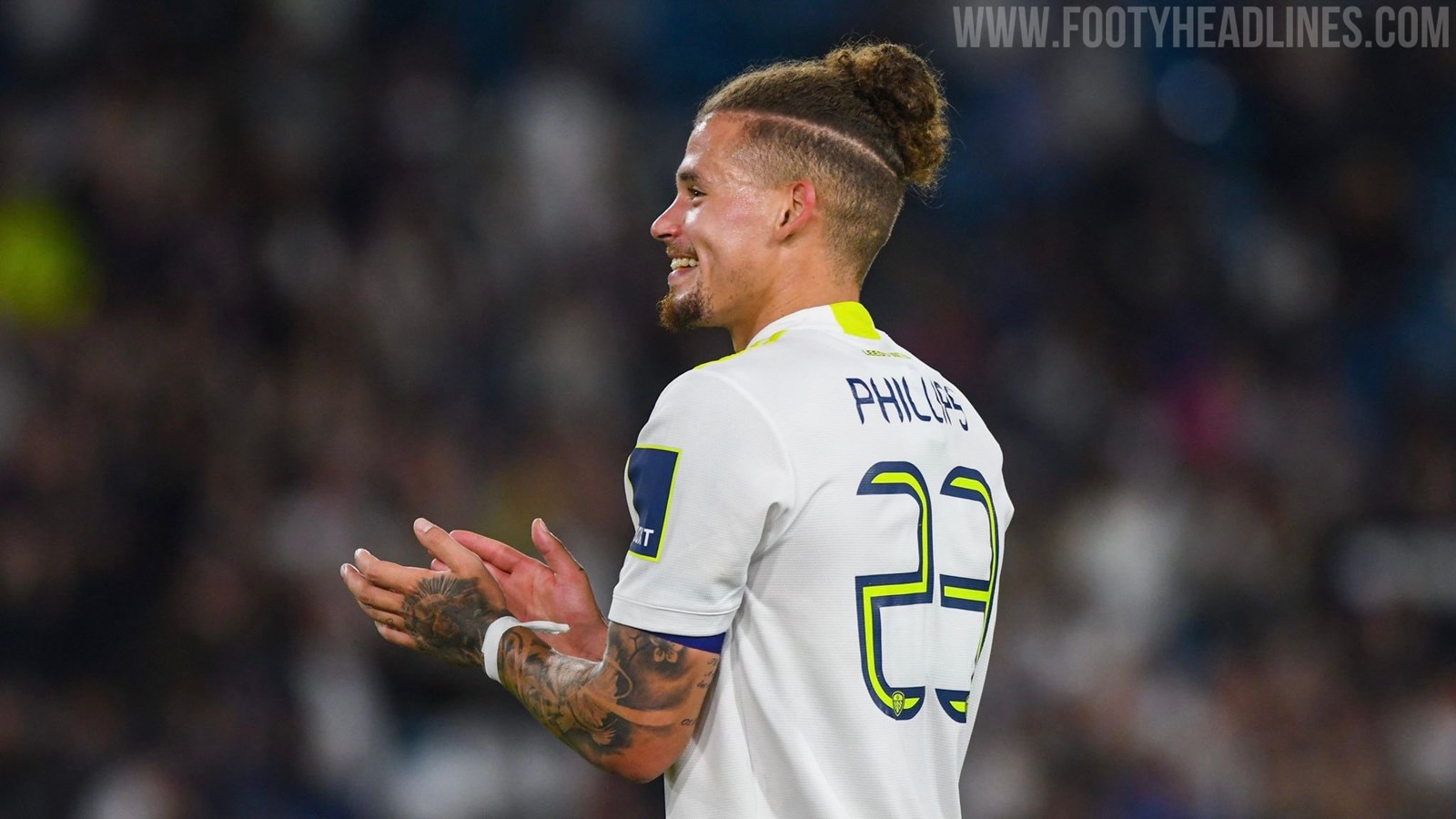
Awesome: Leeds United 21-22 Kit Font Debuted - Cup Only
Update: Leeds United faced League One side Crewe Alexandra in the EFL Cup last night (3-0 win). For us, the most interesting aspect of the match was to see the new Leeds 2021-2022 cup kit font in action which without a doubt elevates a very average Leeds United 21-22 home jersey.
Premier League team Leeds United have caught the attention of kit nerds (thanks to @TobysKits) in pre-season by wearing a new custom jersey typeface.
Leeds will wear the font in the EFL Cup & the FA Cup
After finishing ninth in the 21-22 Premier League season, Leeds will not play in any European competition. They will wear the custom kit font the EFL Cup and the FA Cup.
Leeds United 21-22 Kit Typeface
Leeds' 21-22 kit typeface boasts a modern thin look with angular corners. On the bottom of the typeface is the Leeds crest
What makes the font fitting the kit greatly are the colors - the numbers are electricity yellow with a navy border, the letters are navy.
The kit font Leeds will wear in the Premier League does not fit the jersey greatly - it is totally black.